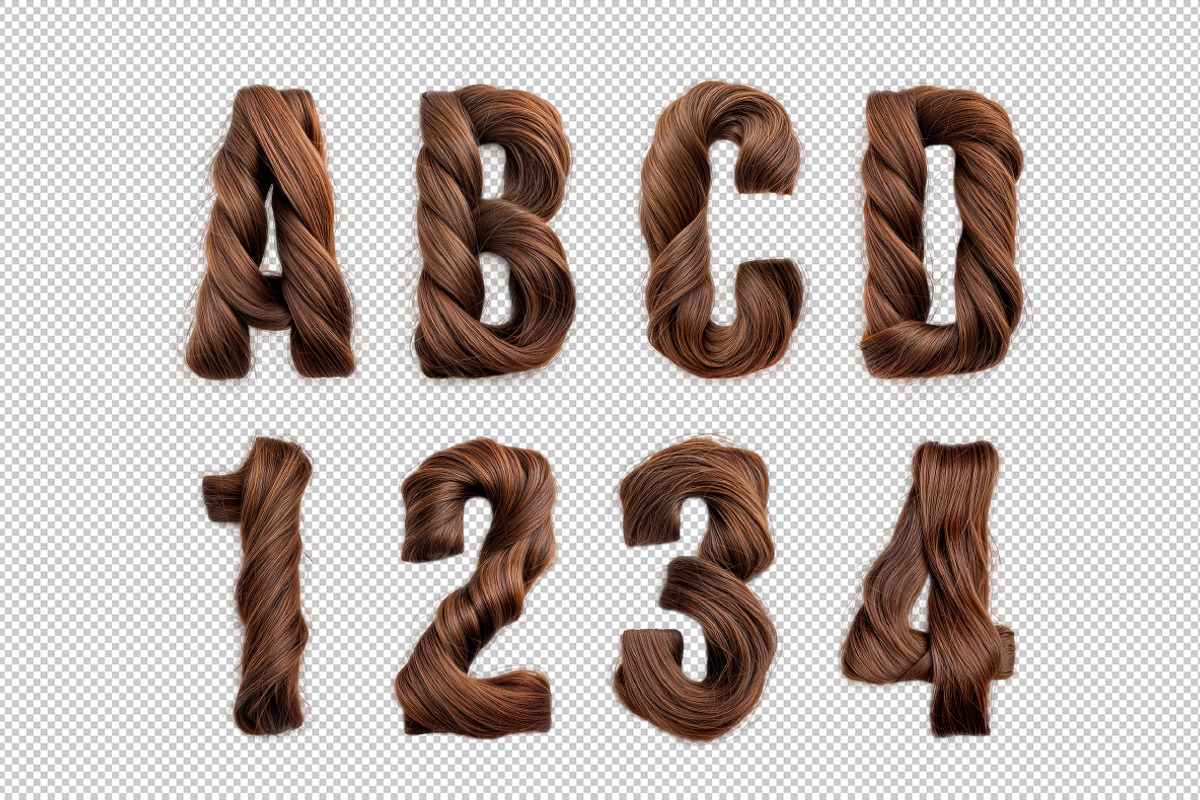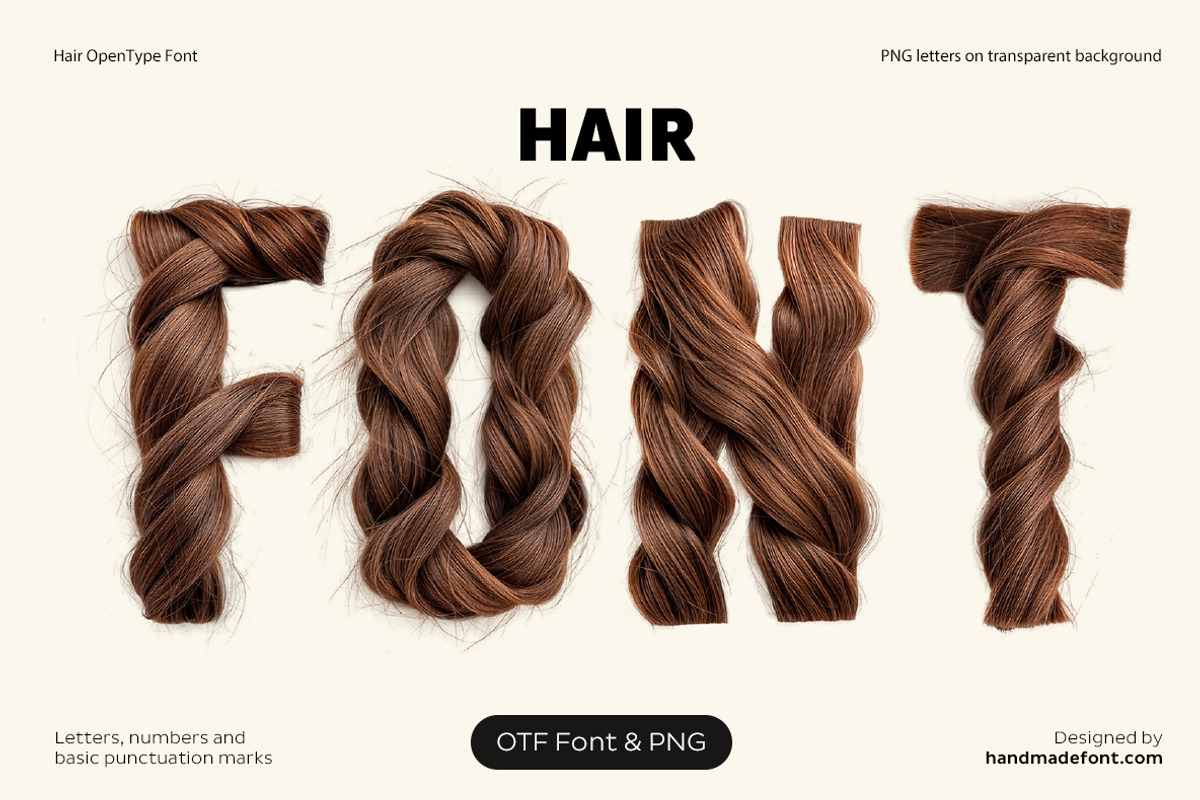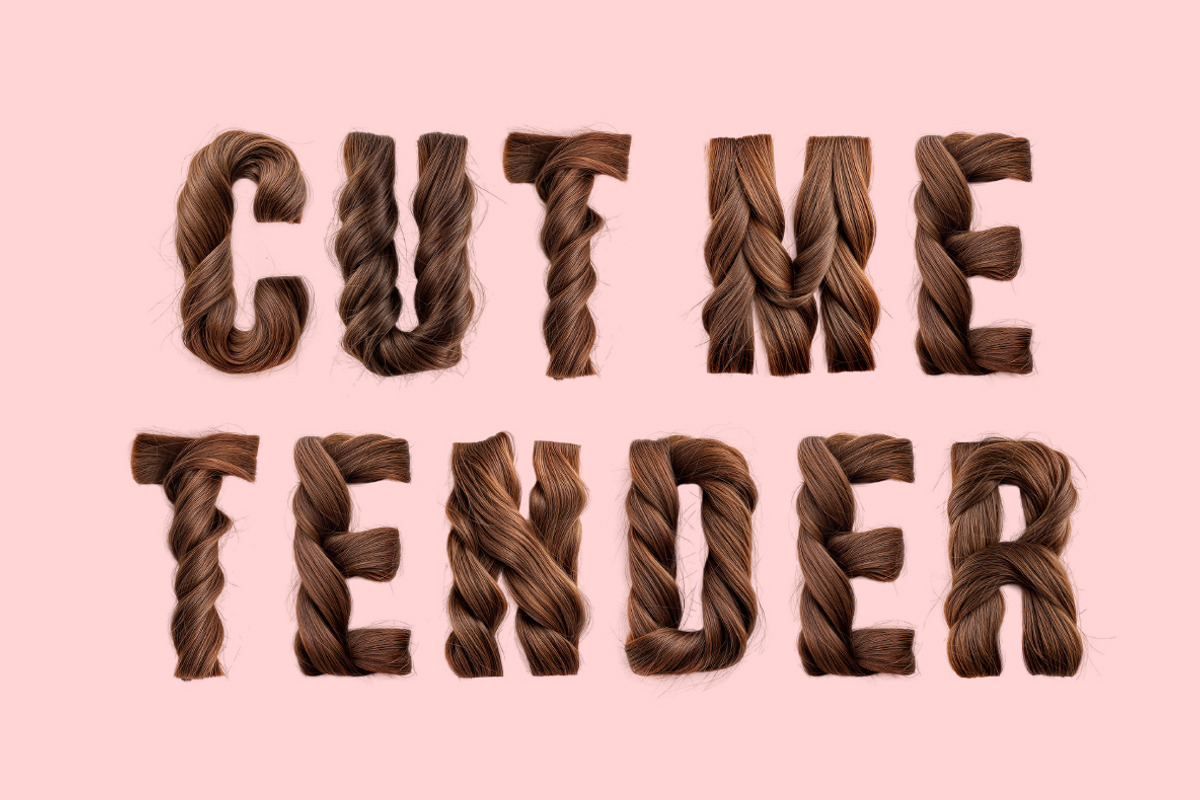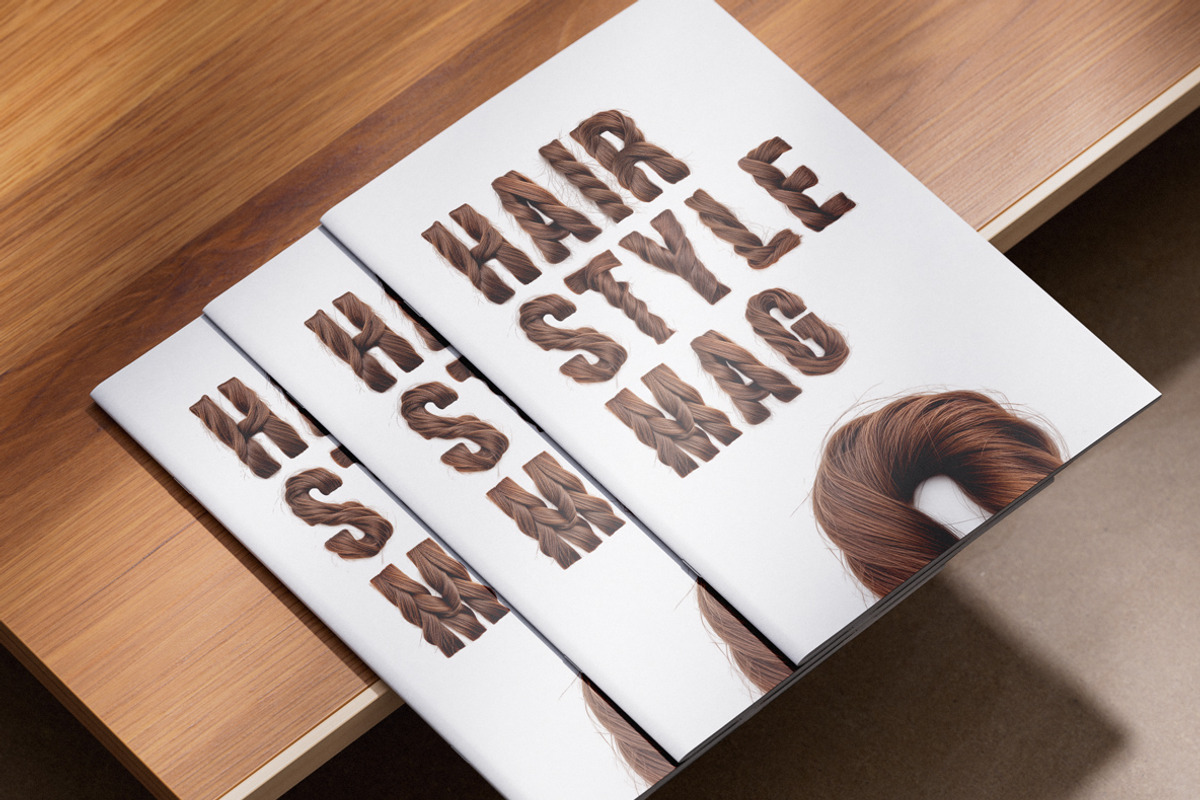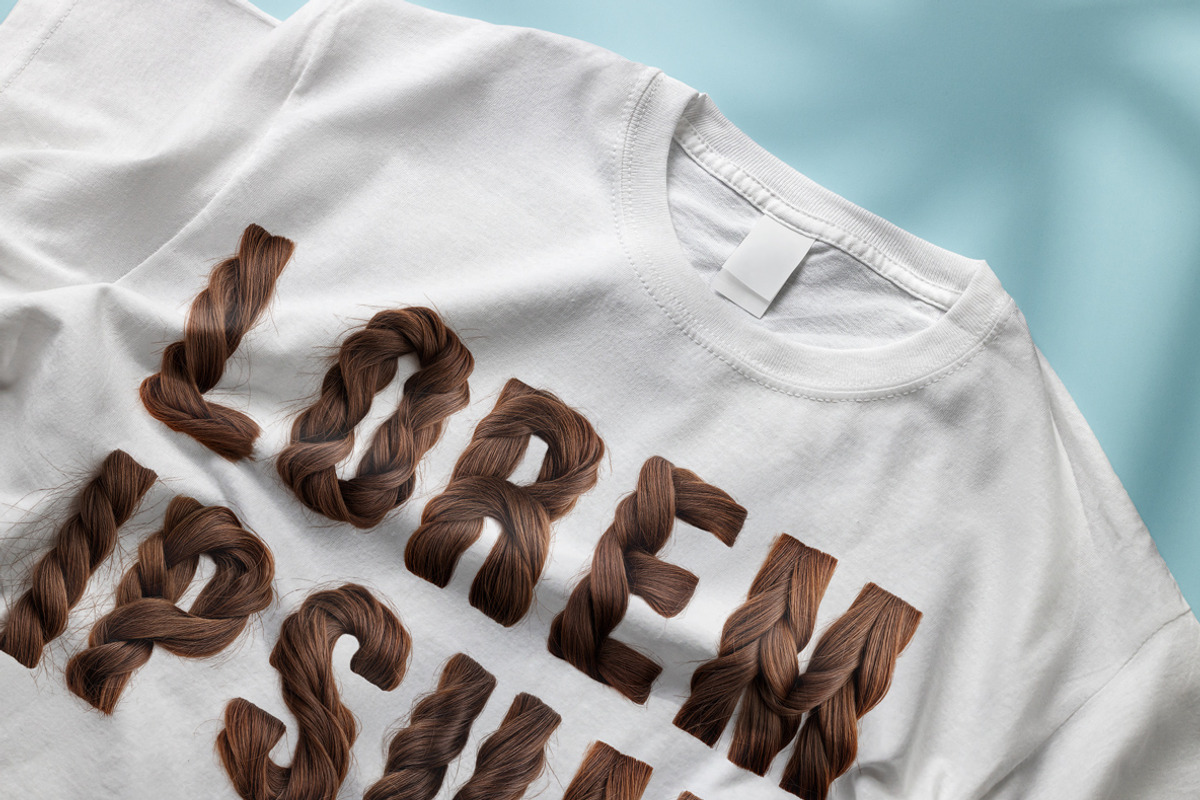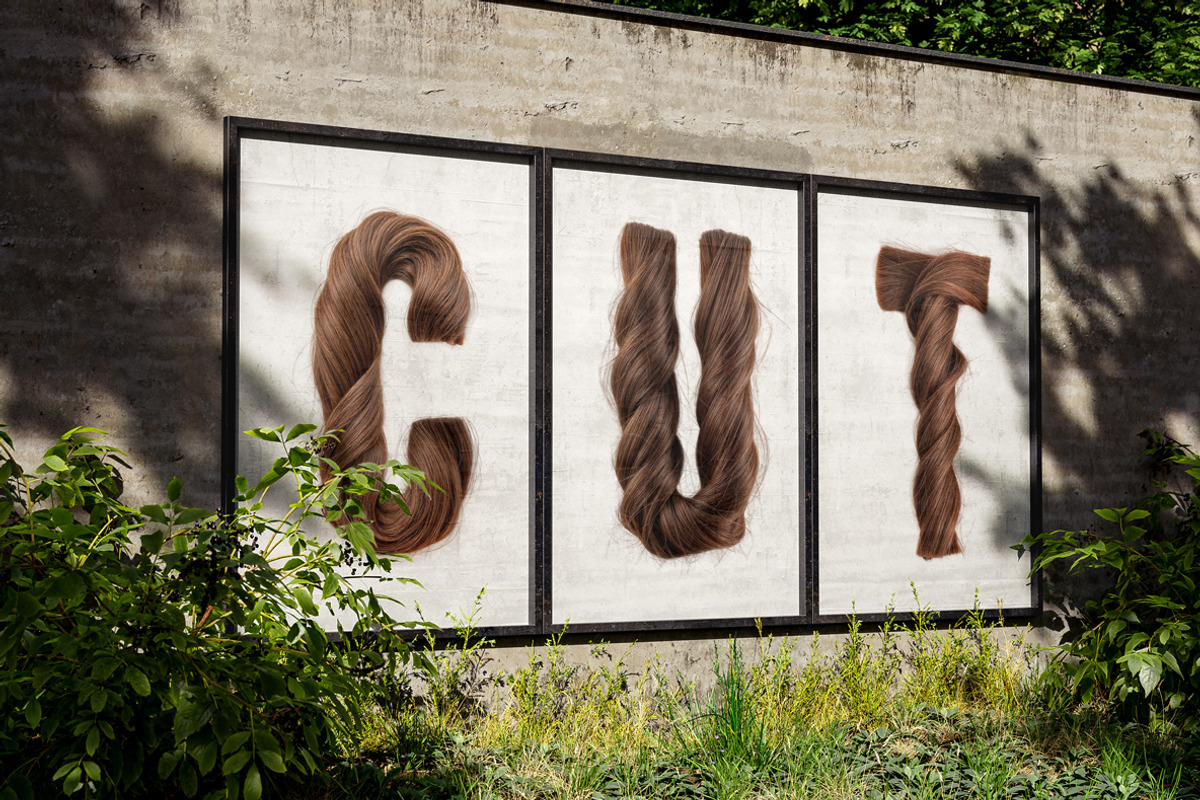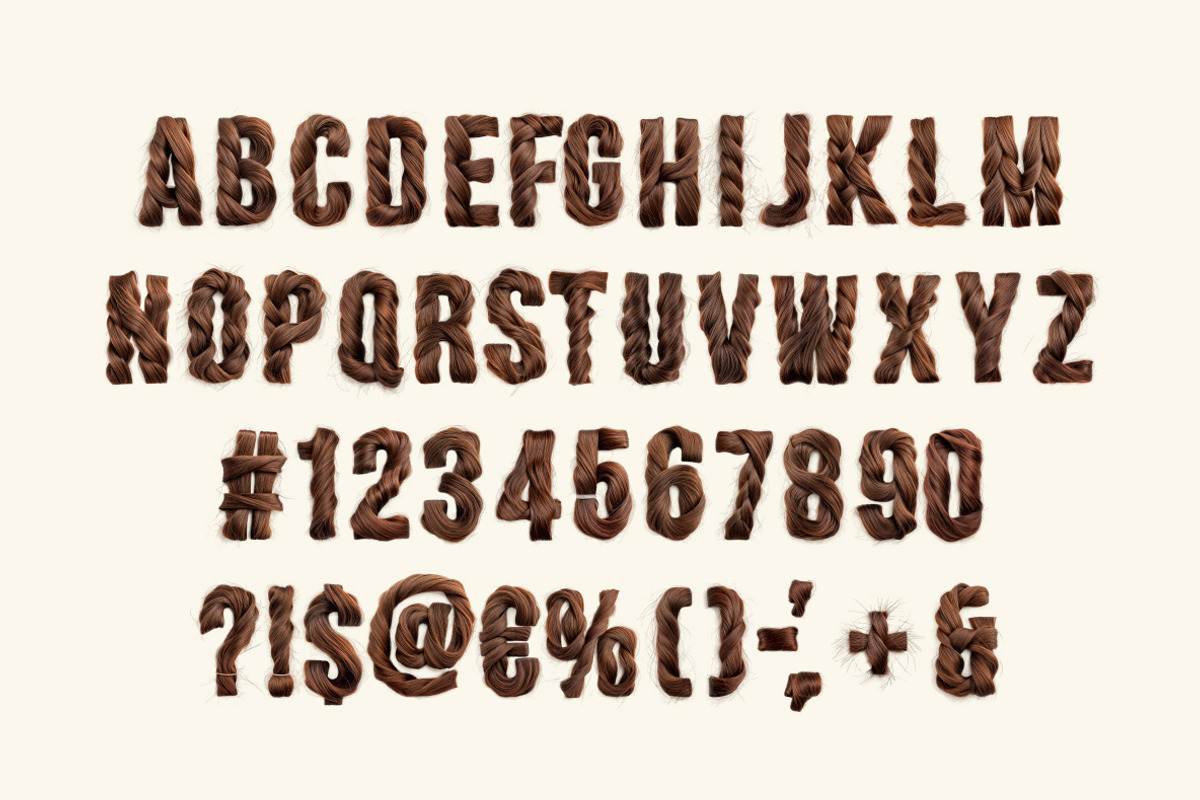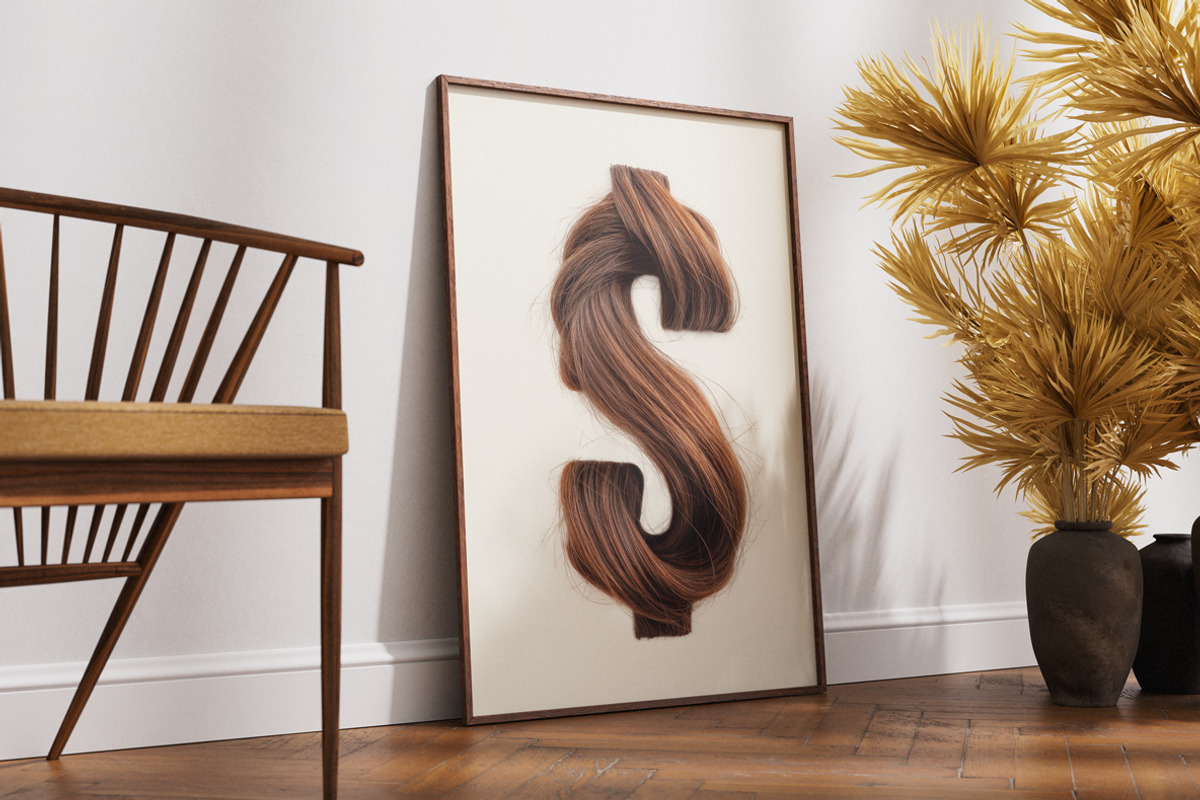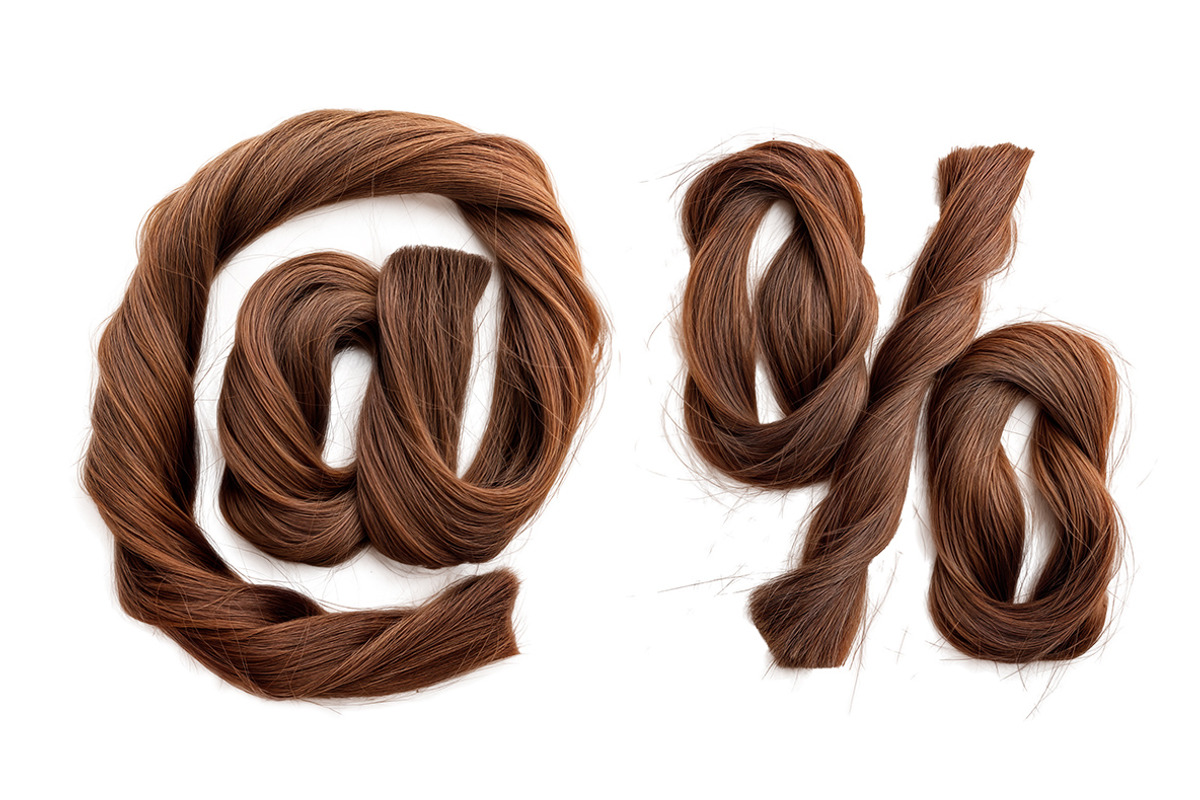
Hair Font
Cut through ordinary typography with Hair Font, where every letter is crafted from luscious, flowing strands of hair. This hair-inspired font transforms the alphabet into a masterpiece of hair lettering, featuring intricate braids, smooth locks, and stylish waves. Each character embodies the essence of hairstyle, from silky straight to voluminous curls. The glossy, reddish-brown strands exude shine, mimicking the beauty of healthy haircare. Perfect for branding hair products, haircolor, or hairgrowth campaigns, this hair typography adds elegance and flair. Whether highlighting hairdye trends or celebrating haircuts, Hair Font turns words into a visual statement of stunning hair artistry.
A high definition OpenType Font. Contains uppercase characters, numerals and basic punctuation. (Draw height roughly 800 pixels). All letters and glyphs that comprises this font you can see on the preview.
- Letters : A B C D E F G H I J K L M N O P Q R S T U V W X Y Z
- Numbers : 0 1 2 3 4 5 6 7 8 9
- Others : ! ? - . ' $ € % & #